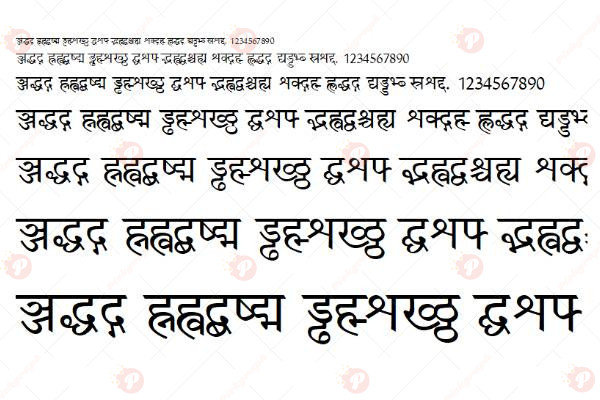
The Chanakya Regular Font is a classic and highly readable typeface, perfect for body text, headings, posters, logos, branding, and digital or print projects. Its clean and timeless design ensures clarity while adding a professional touch to your creative work.
Whether designing for web, print, or branding projects, Chanakya Regular brings elegance and readability to every design.
Style: Regular / Classic / Readable Typeface
Enhance your designs with the classic and versatile Chanakya Regular Font.